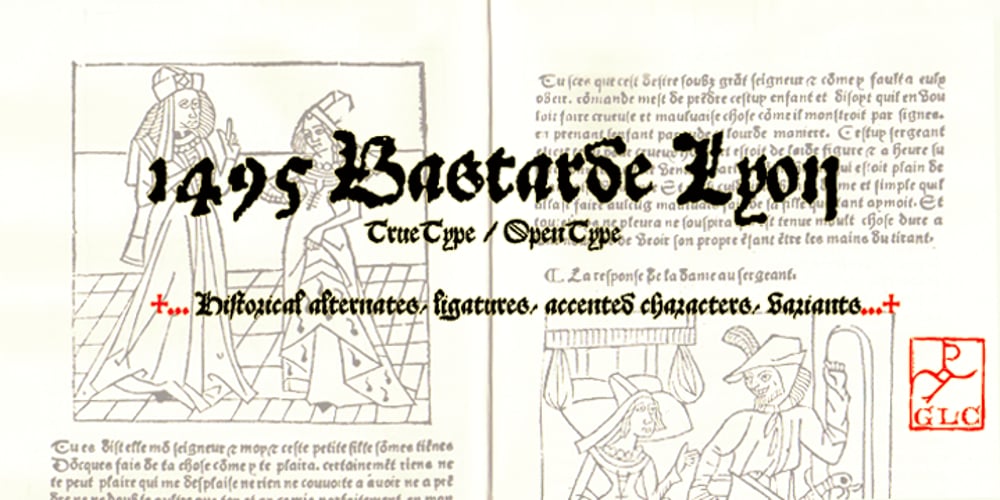
1495 Bastarde Lyon Font Family was designed by published by GLC. 1495 Bastarde Lyon contains 1 styles and family package options. Font designed from this who was used by an unknown printer in Lyon (France) to print the “Conte de Griseldis ” (Griseldis’ tale), from Petrarque, inspired by Boccace, in 1495. The original font has a relatively small number of special characters and ligature, for the time. This font includes “long s”, naturally, as typicaly medieval but numerous letters – as accented ones – were added for this version. A render sheet, enclosed with the file, helps to identify them on keyboard. It is used variously in web-site titles, posters and fliers design, editing ancient texts or greeting cards as a very decorative and fine font… This font works at a small size like 9, remaining clear and easy to read on screen, but always better when printed.